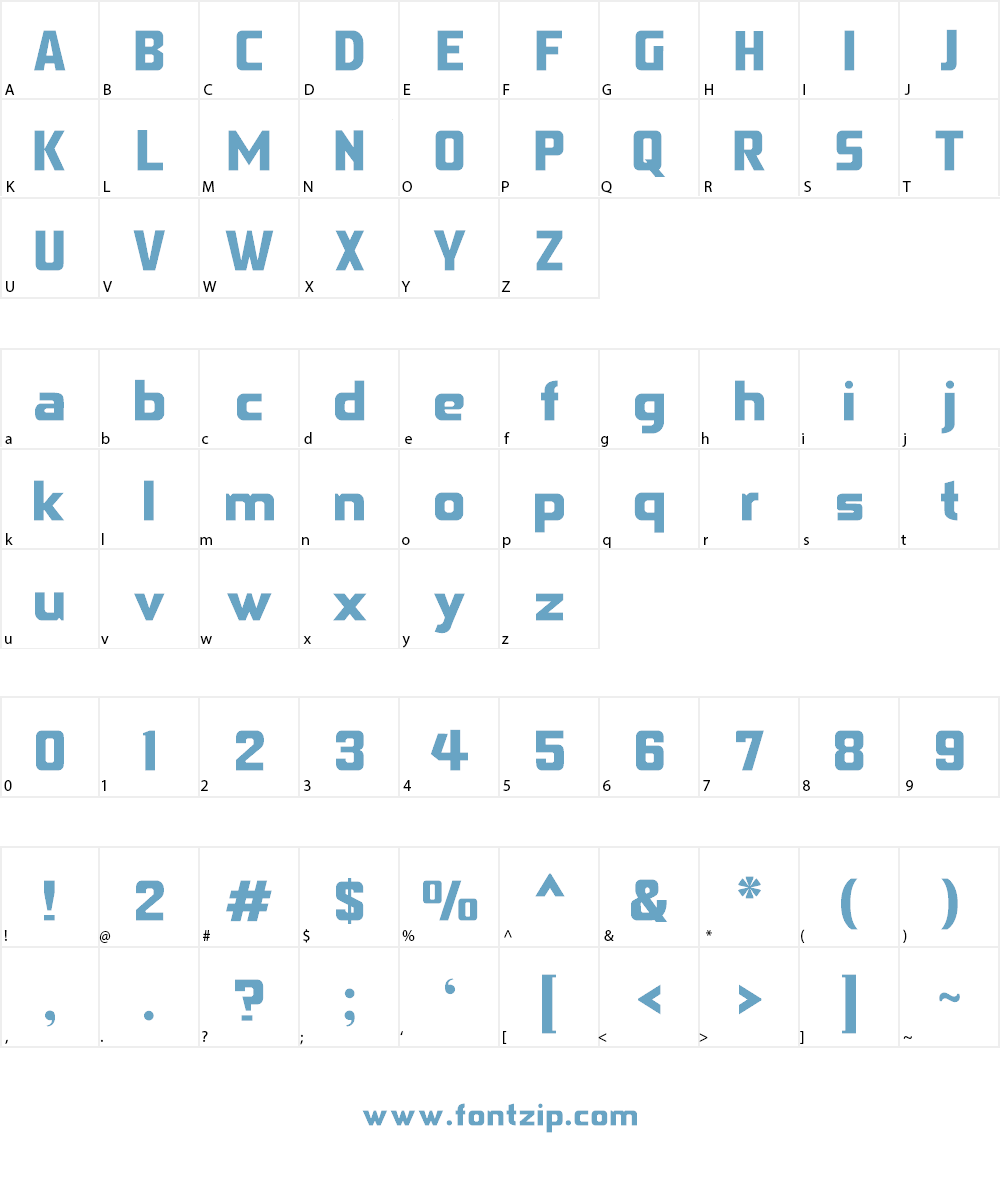
This is Gageda Old. It's Sequoyah's first version done in Gageda style. (you can jump between Gageda and Gageda old for fun ) don't be afraid to email me changes. i will fix anything you need me to change on it.